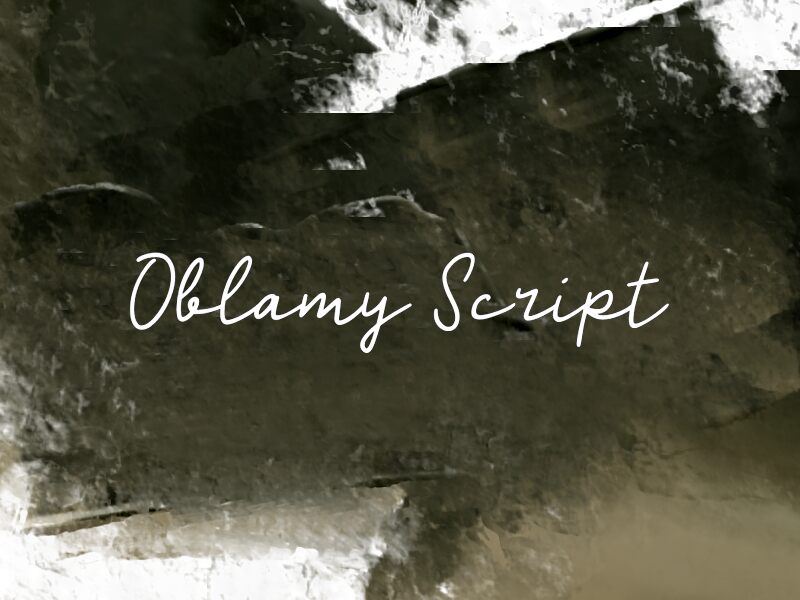
Oblamy Script font by wep is a free handwritten font that expertly evokes the personal and approachable style of handwriting. Organic and fluid, the font mimics penmanship that injects legibility with a touch of elegance. The detailed characteristics resemble real handwriting, complete with natural transitions and rhythm in all parts which adds a special touch to every project.
The informal and natural style of writing comes in handy while preparing the targeted audience for a more relaxed and open perspective to whatever message is being promoted. Use Oblamy Script in logos, posters, signage, film titles, invitations, packaging, or any other personal design project.
Oblamy Script is a stylish and contemporary font that offers a unique handwritten touch to your designs. This free font is perfect for a variety of projects, including invitations, logos, and branding materials. Its elegant flow and distinctive character make it an excellent choice for anyone looking to add a personal flair to their typography.